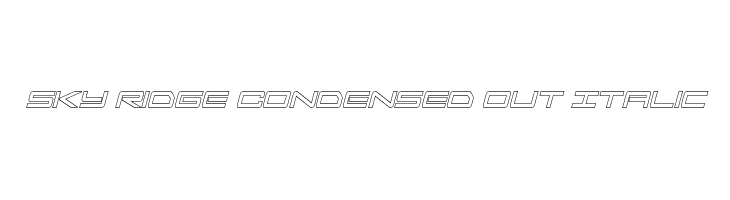
A futuristic, geometric, and italicized font with outlined characters.
A futuristic, geometric 3D font with outlined characters and a modern aesthetic.
A bold, extra-condensed italic font with a modern, dynamic style.
A futuristic, geometric font with angular lines and consistent stroke width.
A futuristic, angular font with a dynamic slant and consistent stroke thickness.
A bold, condensed, and italic font with a futuristic and dynamic style.
A futuristic, geometric font with a bold, 3D outlined style.
A bold, condensed font with a futuristic, geometric style.